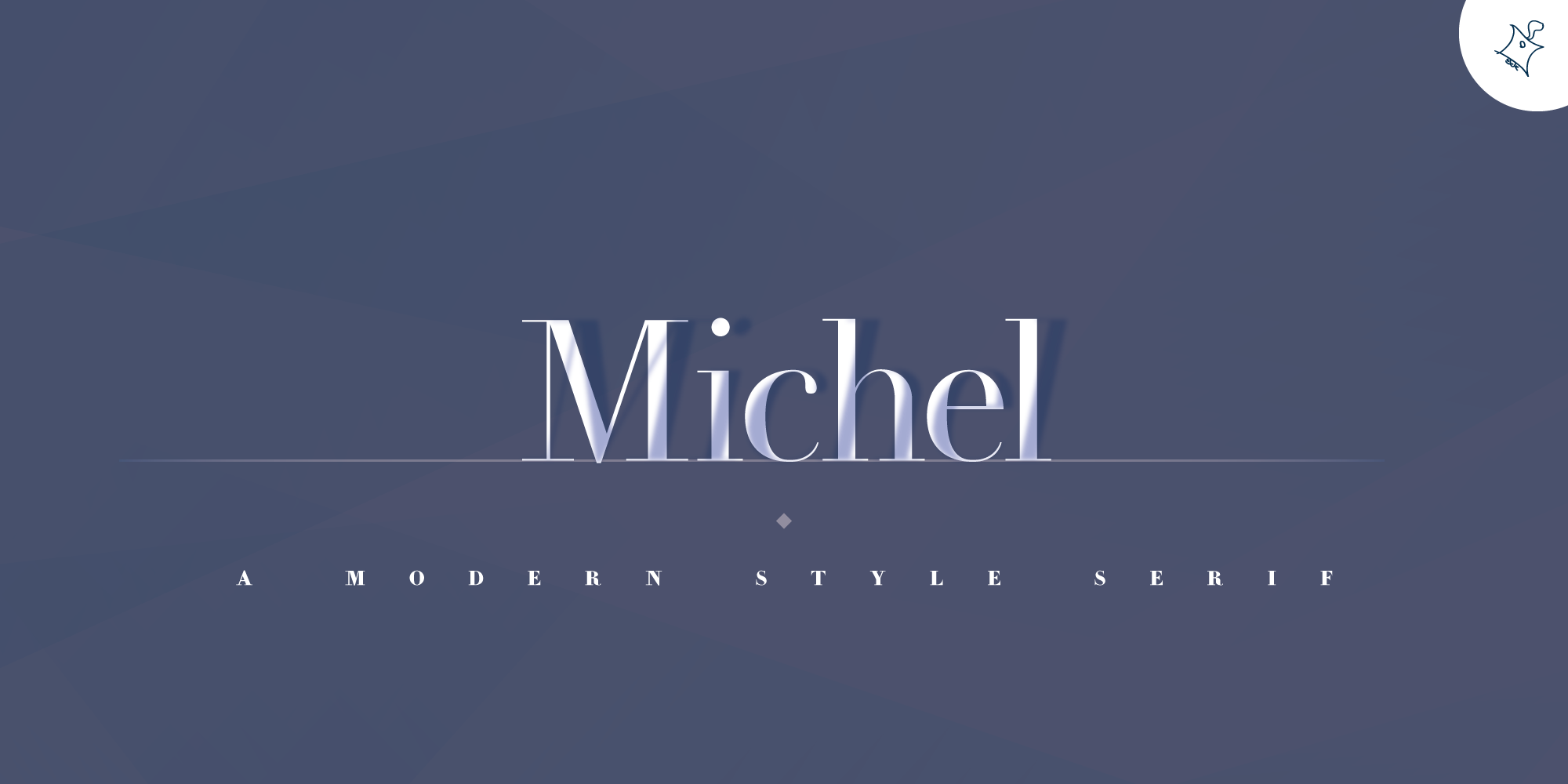
Michel Font is perfect for French patisserie branding, Parisian café signage, sophisticated restaurant menus, European fashion magazines, fine art gallery materials, luxury French brands, classical music programs, boutique hotel communications, French cultural events, and any projects that need elegant typography with French sophistication and European cultural refinement.
What makes Michel Font exciting is its quintessentially French character that embodies the refined elegance and cultural sophistication of Parisian design with letterforms that seem to carry the artistic heritage of French typography masters. This distinguished typeface features graceful characteristics with European refinement that evokes sidewalk cafés, artistic salons, and the timeless elegance of French cultural traditions that have influenced global design for centuries. The font's French character makes it perfect for brands seeking to communicate sophistication, culture, and the refined taste that defines authentic French style and European elegance.
Michel Font family includes sophisticated style variations featuring light, regular, medium, and bold weights. The font family also offers elegant italic versions with enhanced French flair, along with condensed variants that maintain European sophistication. Special features include French accent marks, cultural ornaments, and Parisian decorative elements that enhance the refined atmosphere of luxury European design applications and sophisticated cultural communications.